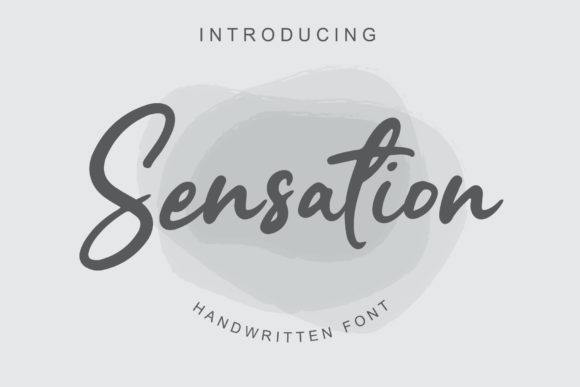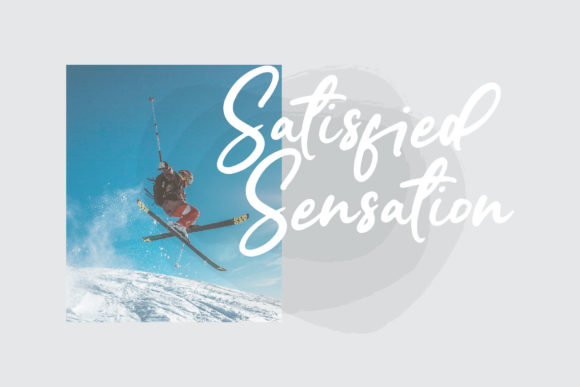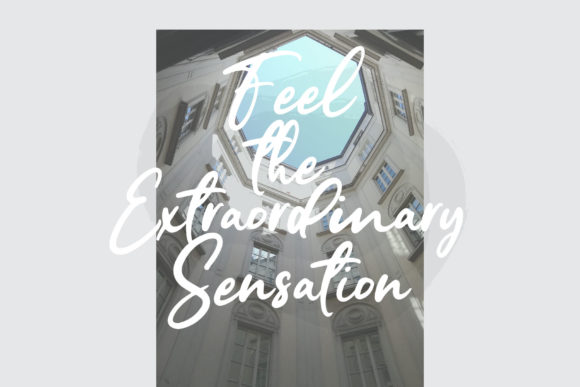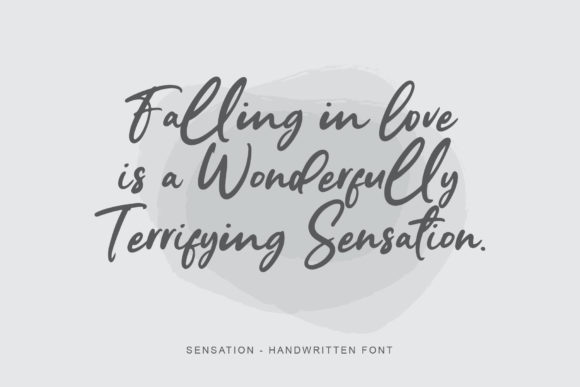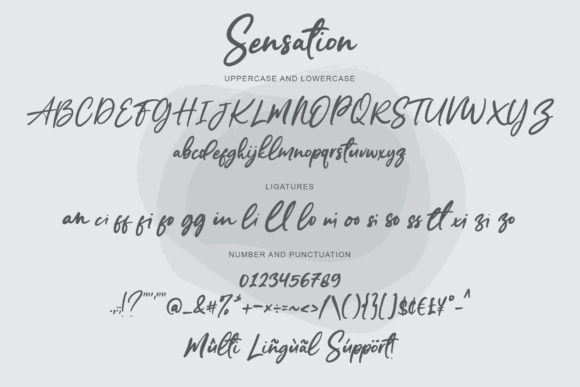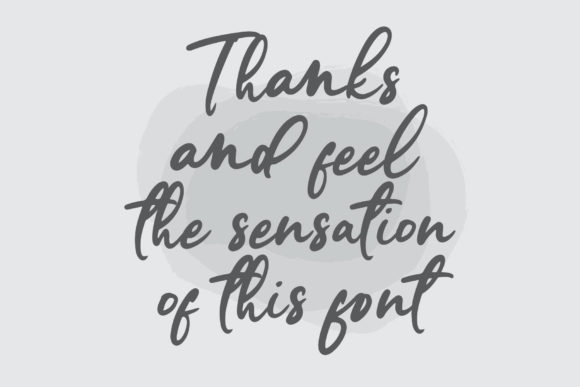
Sensation Font
About Sensation Font
Sensation is a beautiful lettered and flowing script font. Fall for its ravishing style and use it to create gorgeous wedding invitations, beautiful stationary art, eye-catching social media posts, and much more!